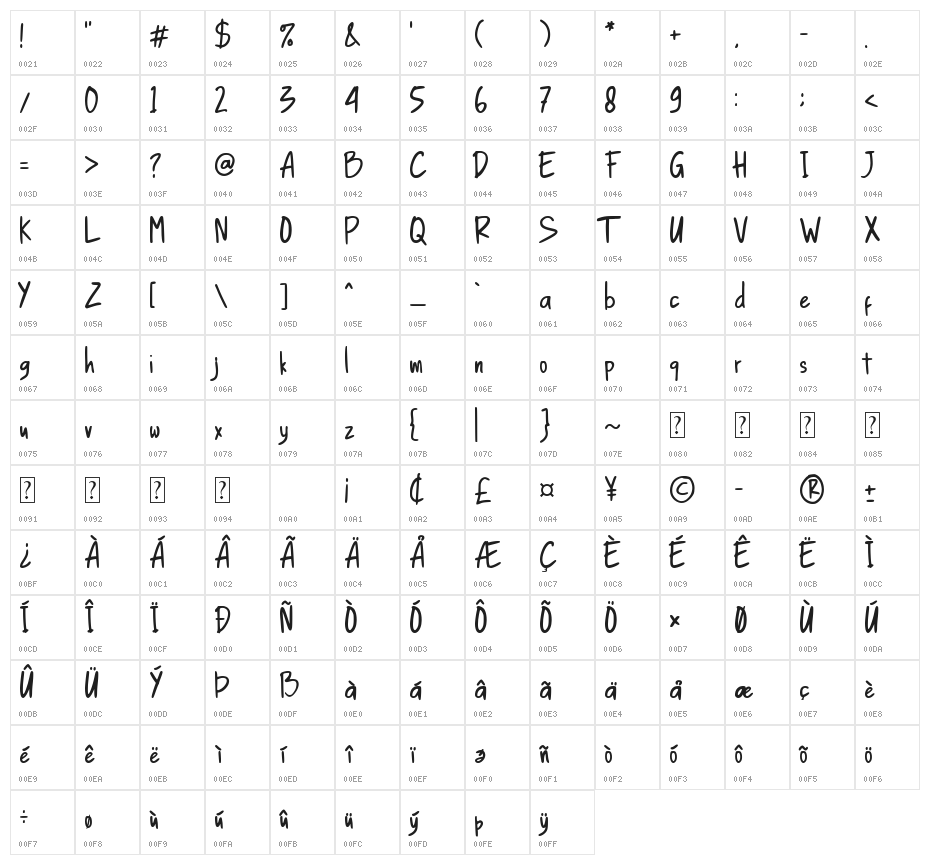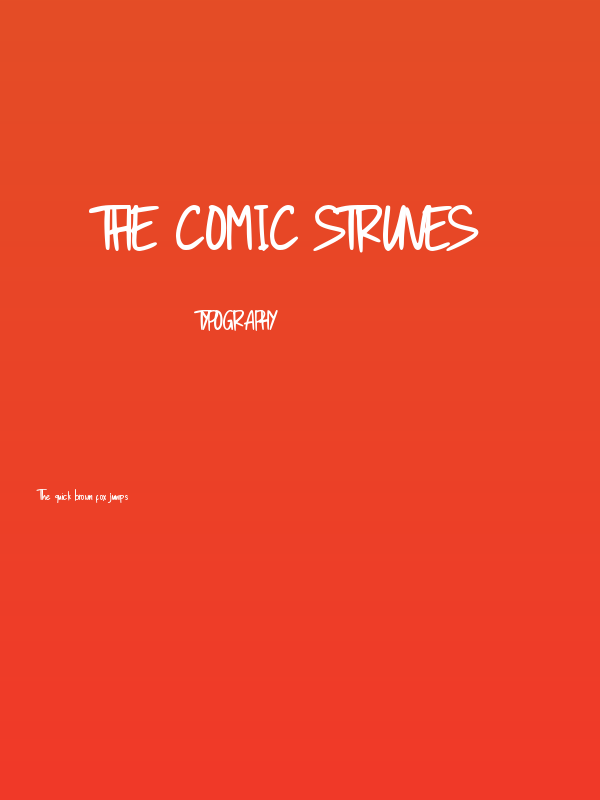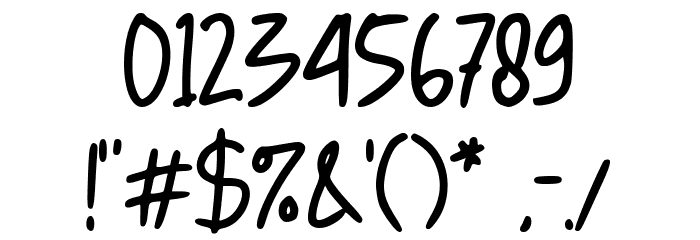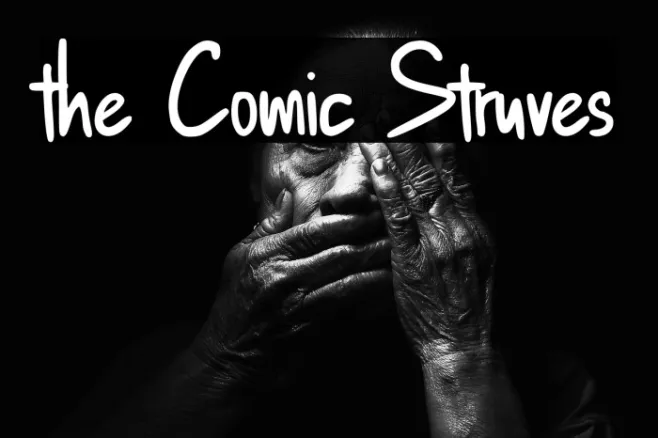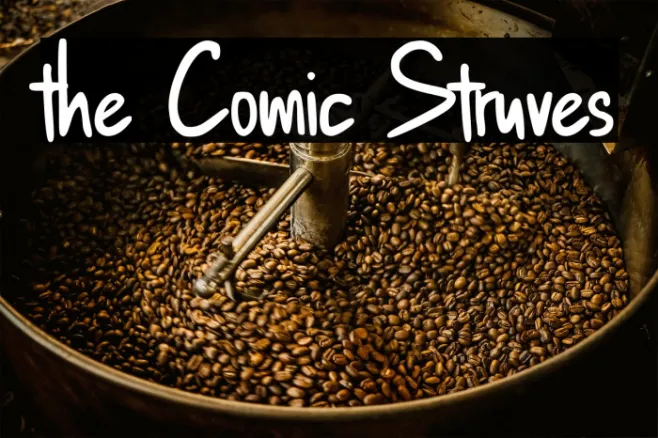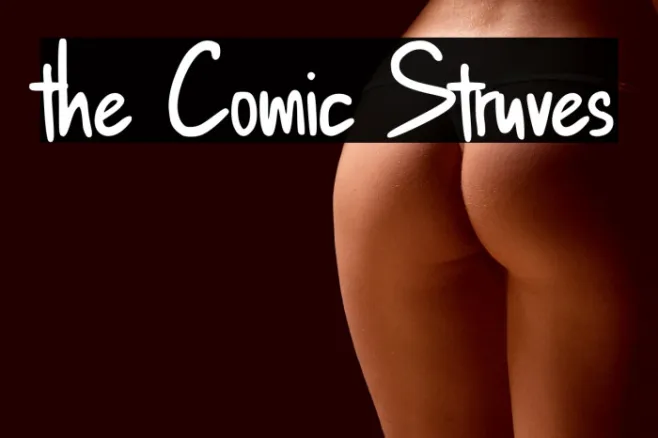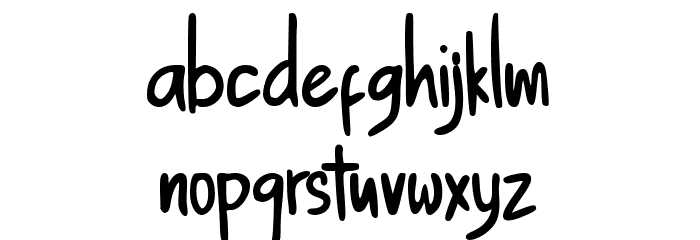
the Comic Struves Font
the Comic Struves Description
This playful and informal font features a handwritten style with a casual, friendly appearance. The letters are slightly irregular, giving it a whimsical and approachable feel. The strokes are consistent in thickness, contributing to a cohesive look across all characters. The font includes both uppercase and lowercase letters, numerals, and a variety of special characters, making it versatile for different uses. Its design is reminiscent of comic book lettering, with a touch of spontaneity and fun. The characters are well-spaced, ensuring readability while maintaining its lively character.
| Proposed Projects | Ideal for comic books, children's books, playful branding, and casual invitations. |